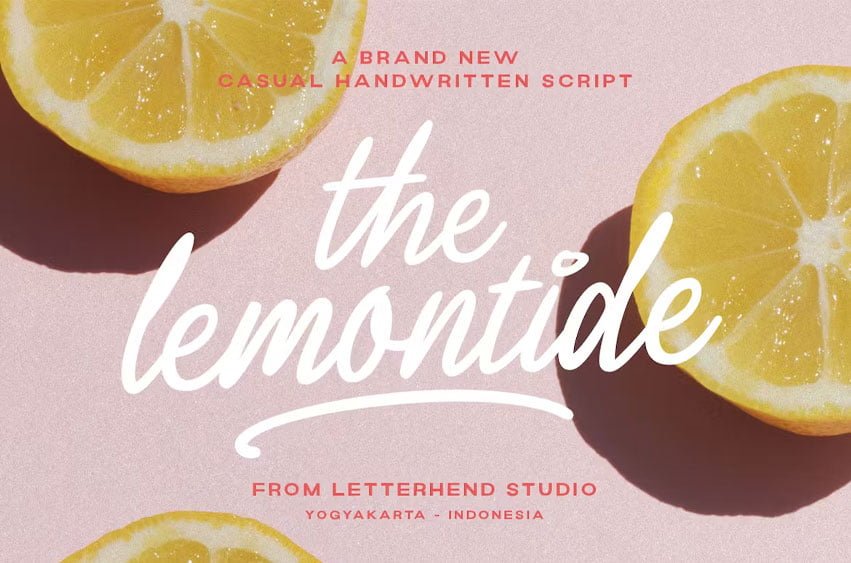
Lemontide Font is a casual script hand-written font that will add a touch of catchy to your designs. This font has charming vibes that make it perfect for projects that require a friendly and approachable feel. The letters are slightly wider than usual, giving it a modern yet comfortable appearance.